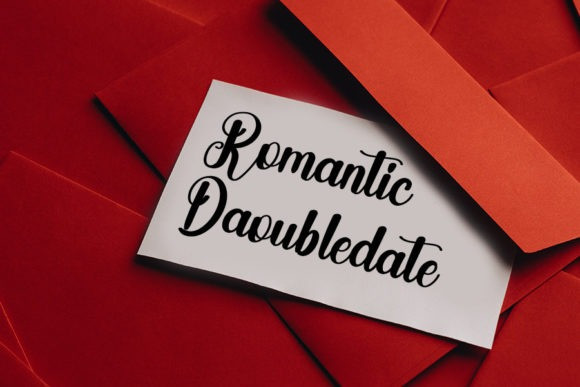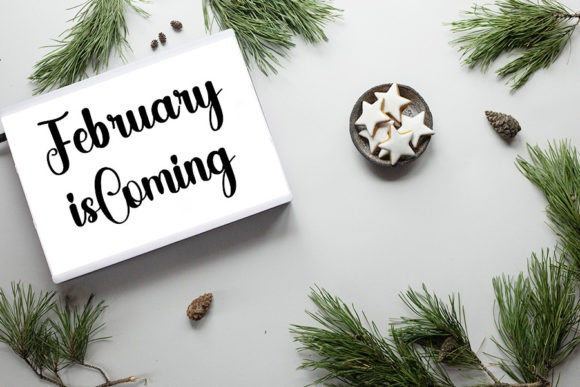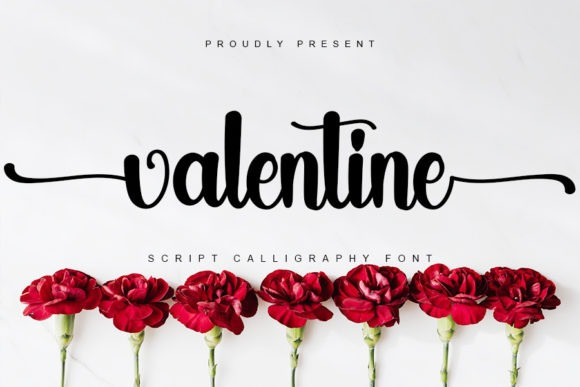
Valentine Luxury Font
Valentine Luxury Font is an enchanting script font. It will add a luxury spark to any design project that you wish to create! This font is PUA encoded which means you can access all of the amazing glyphs and ligatures with ease!